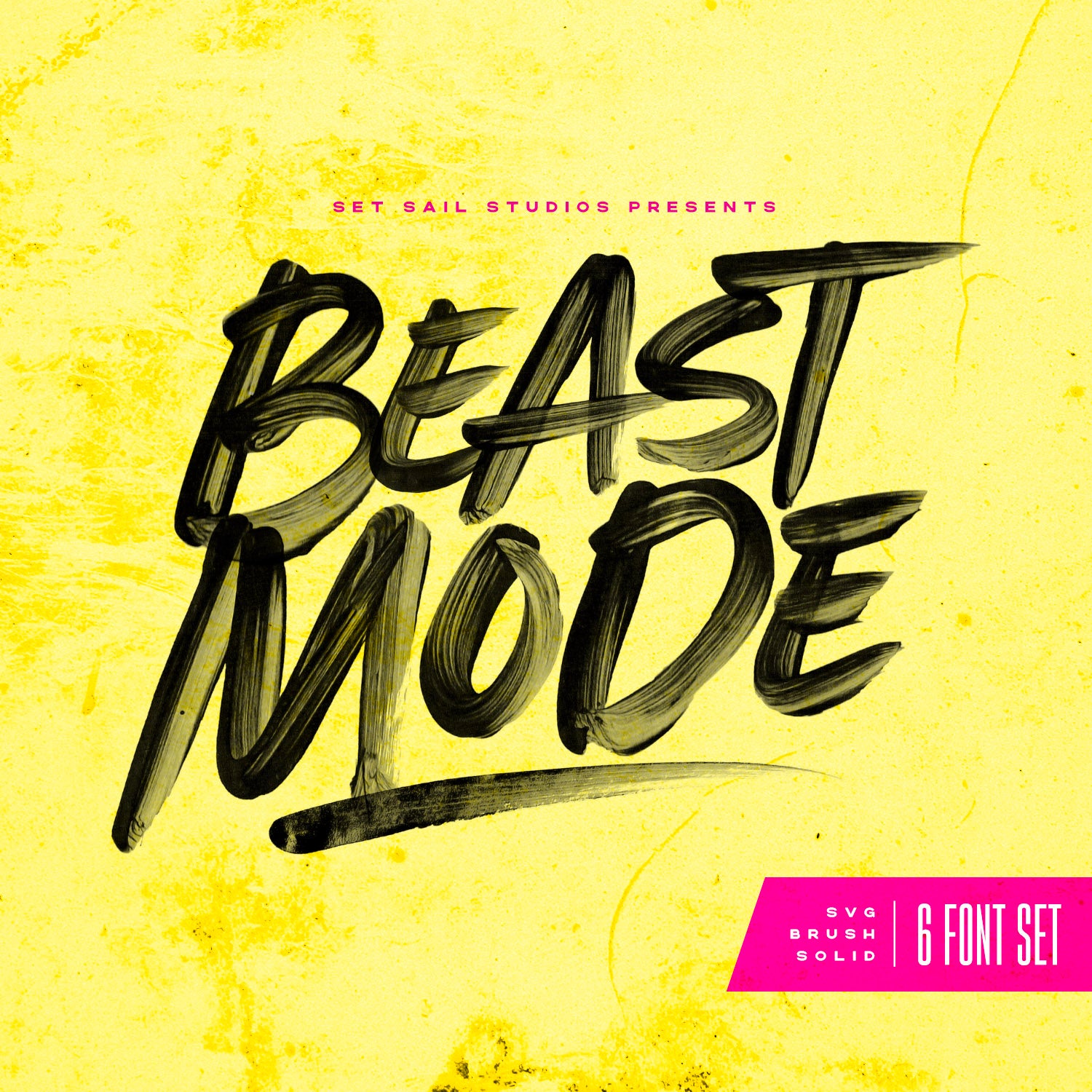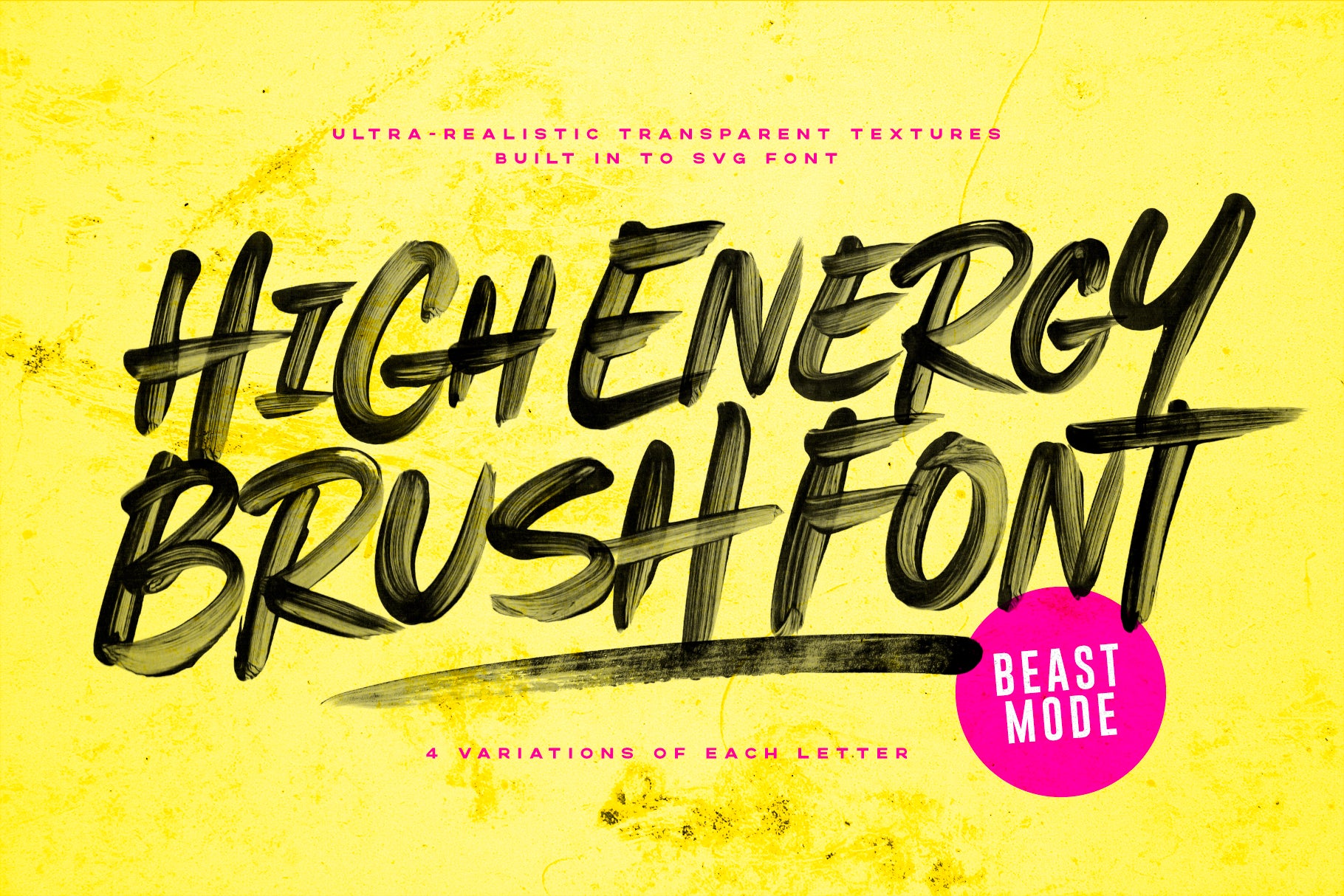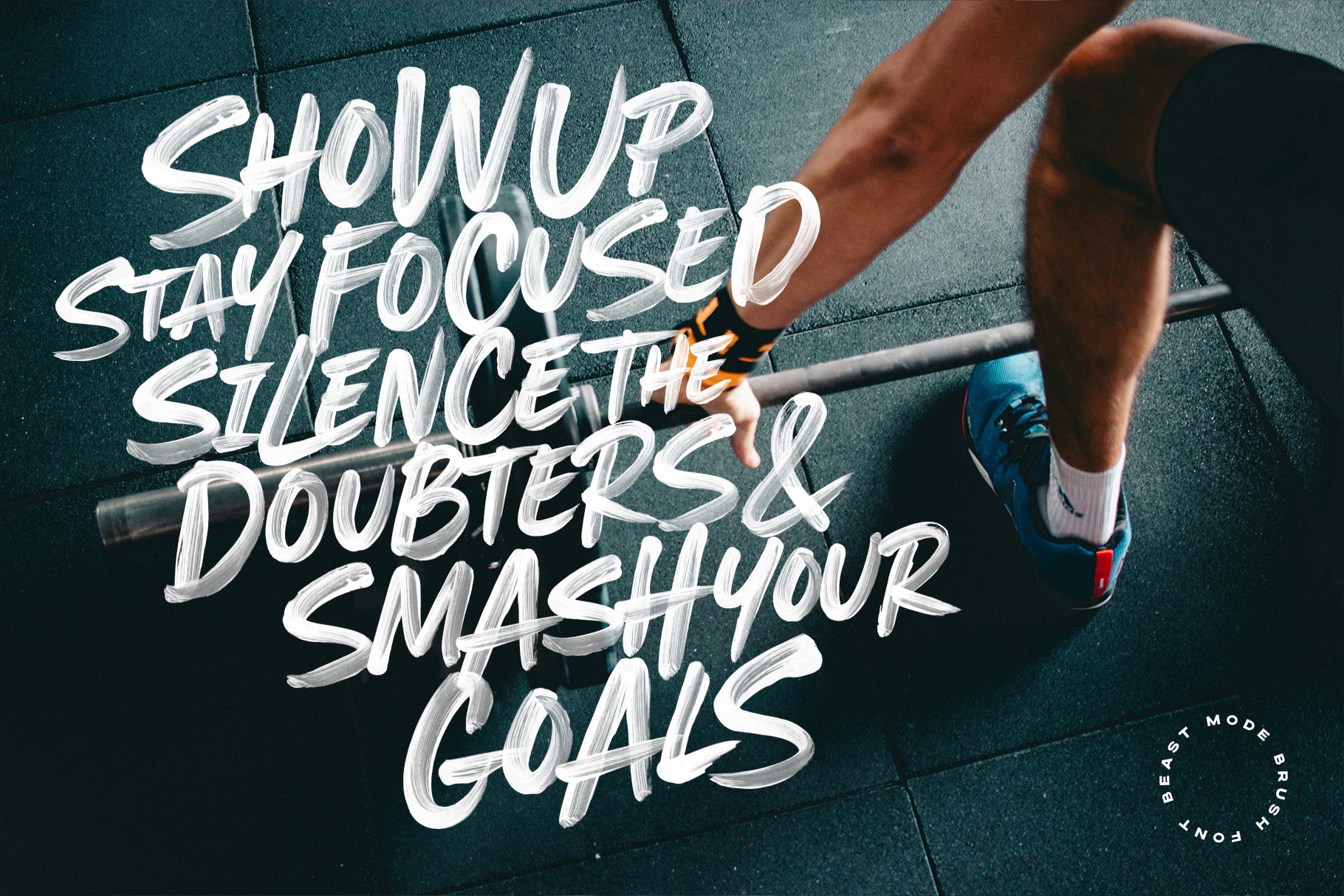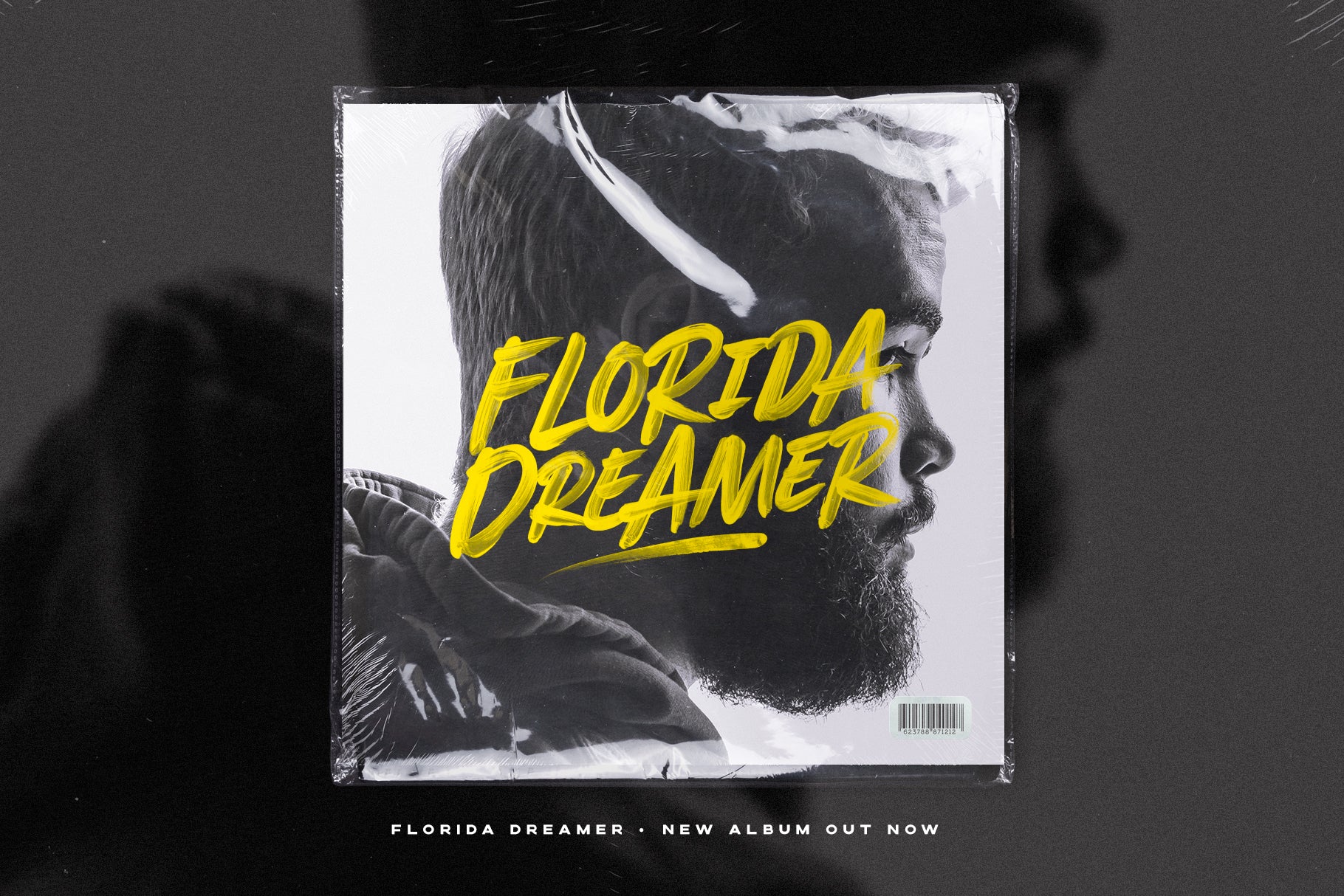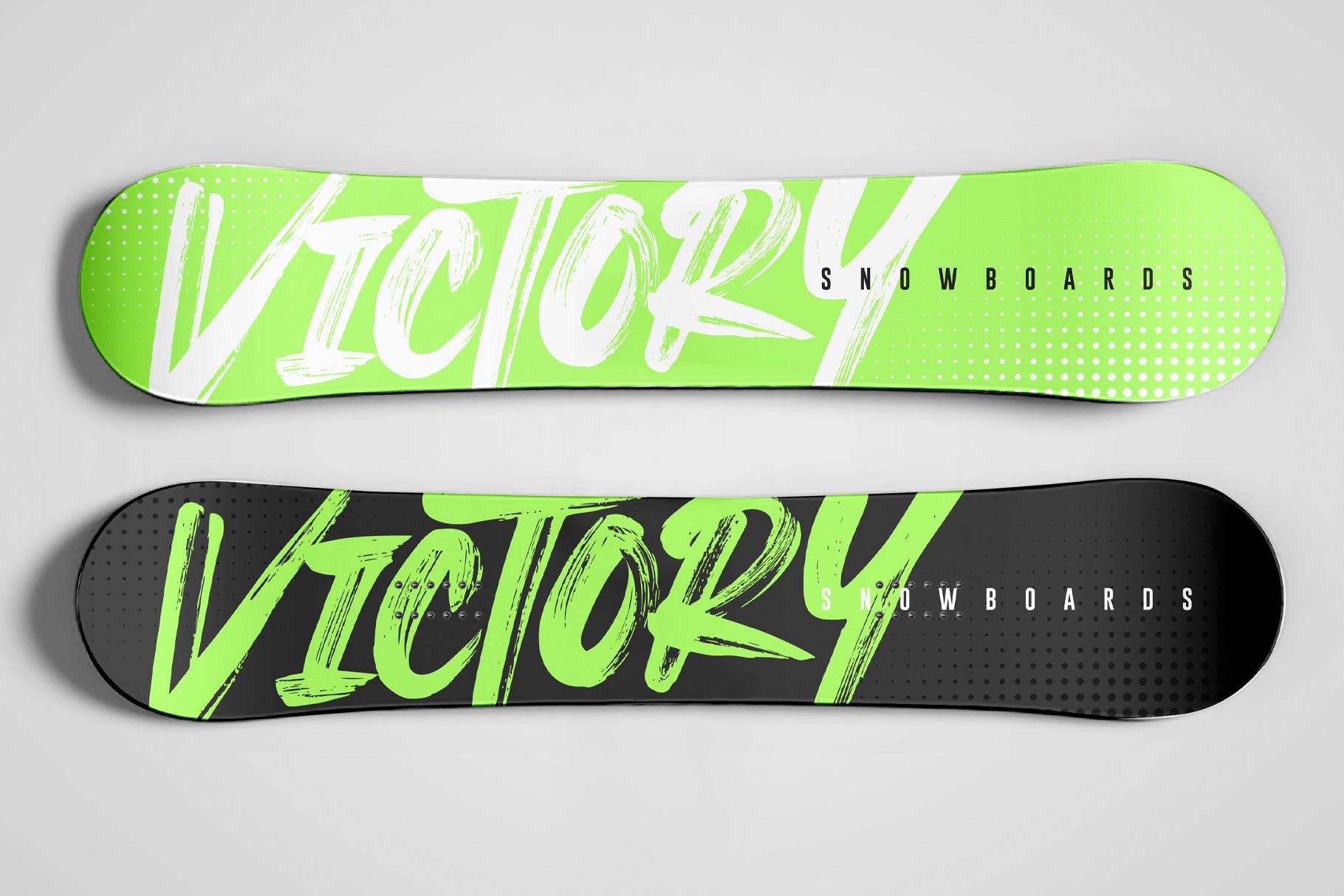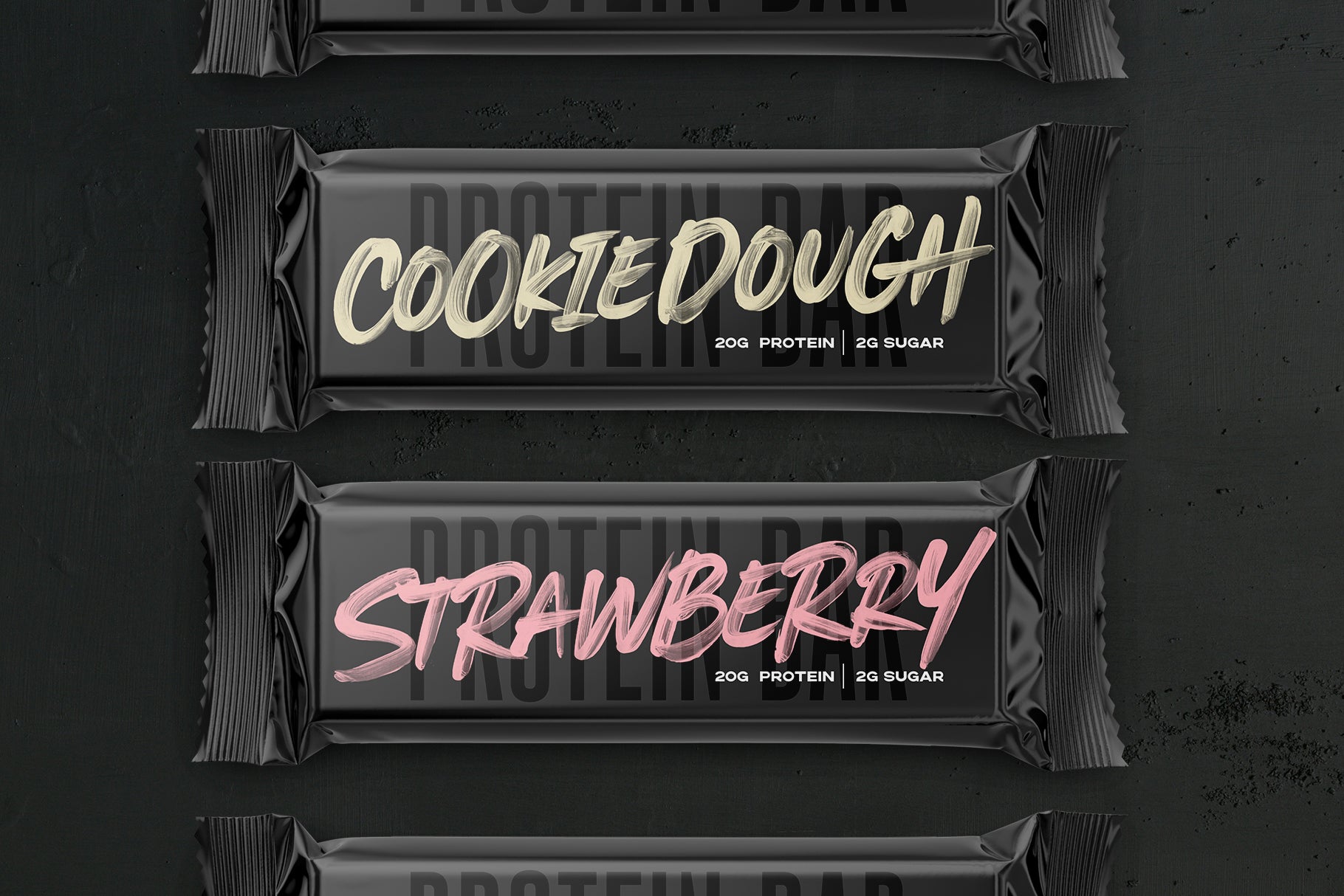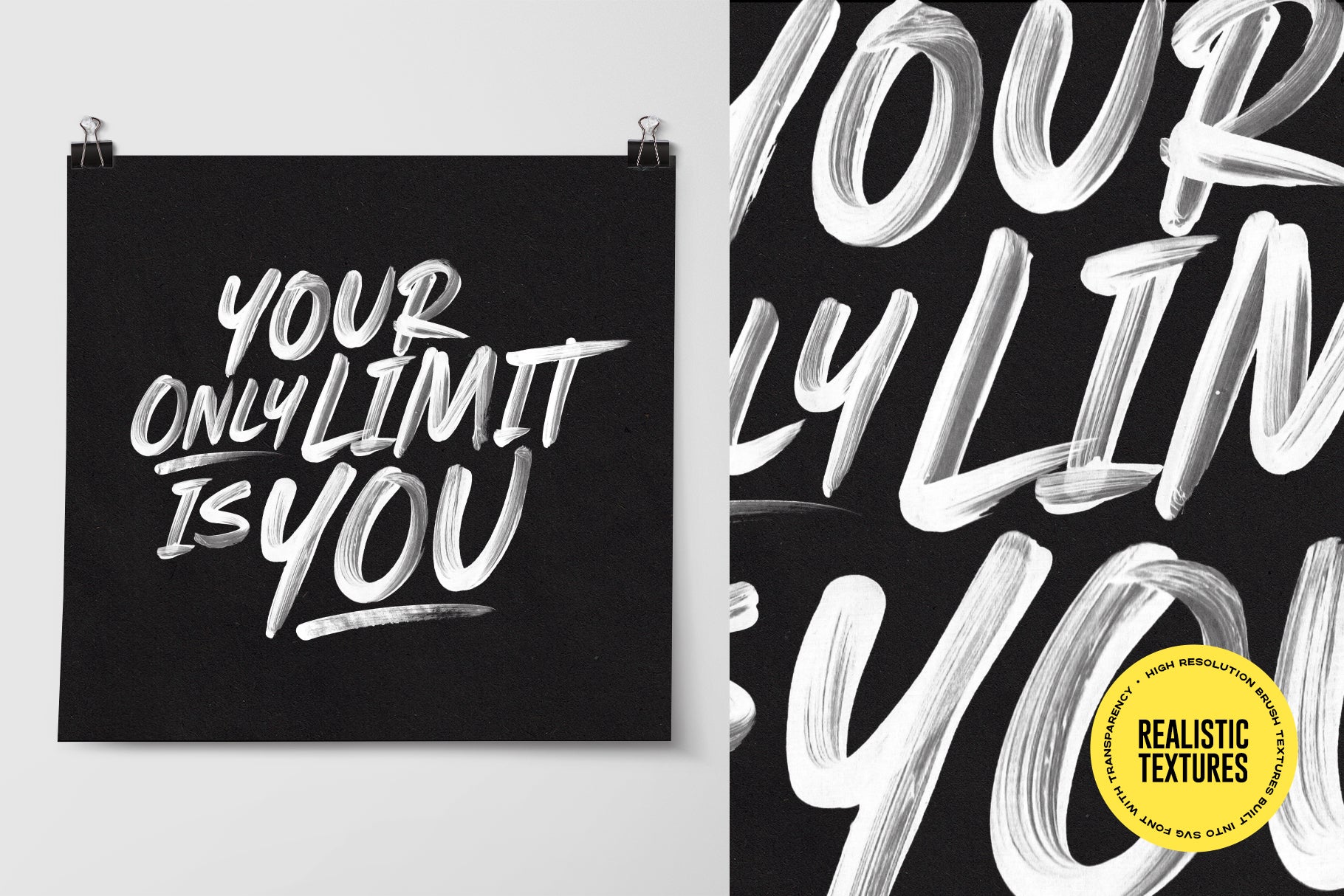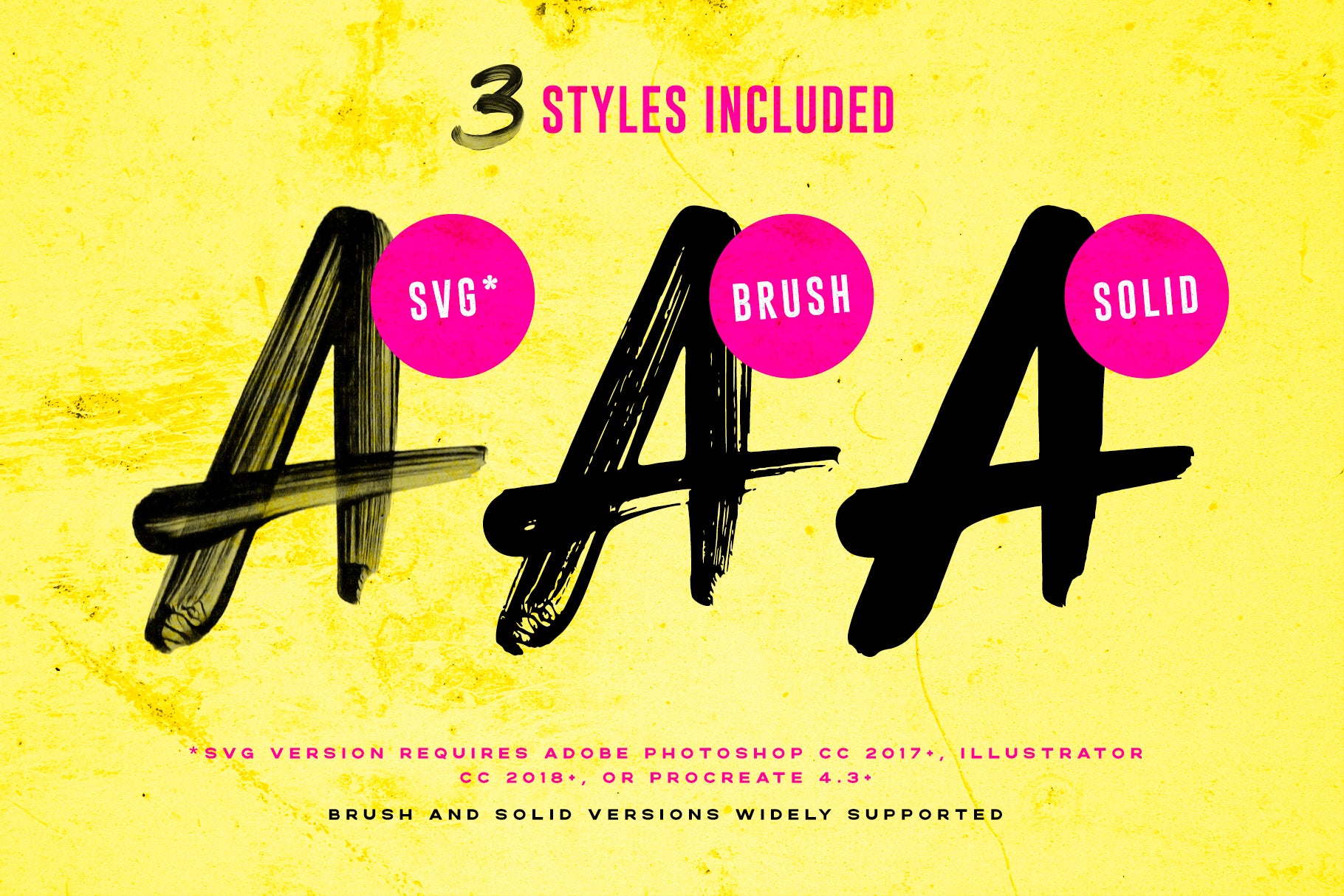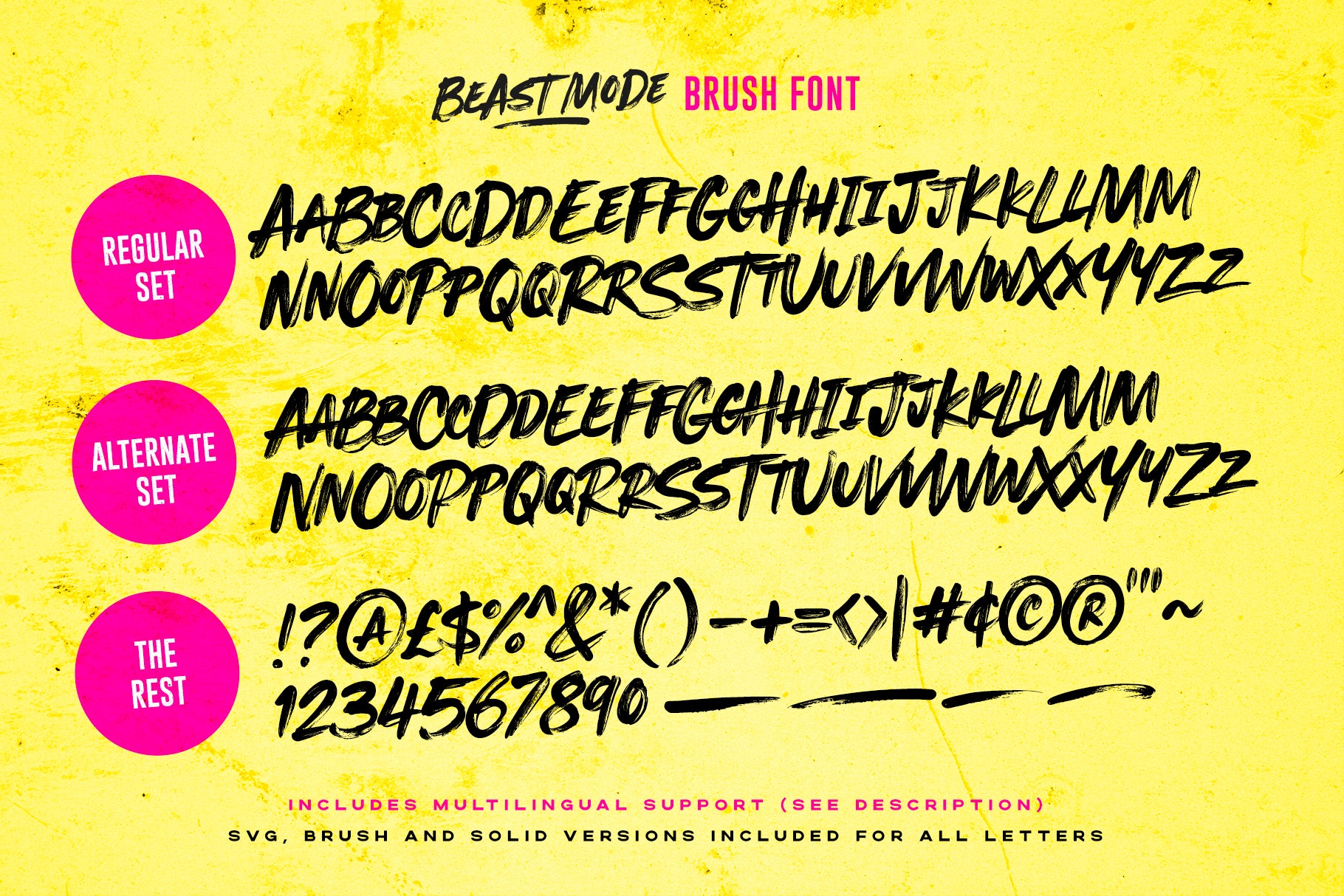
Beast Mode SVG Brush Font
The Beast Mode SVG Brush Font is a bold, all-caps brush font featuring realistic paint textures, available in six variations: SVG, Brush, Solid, and their alternate sets. It includes two full sets of uppercase and lowercase characters, supports multiple languages in the Brush and Solid versions, and requires specific software for the SVG format.